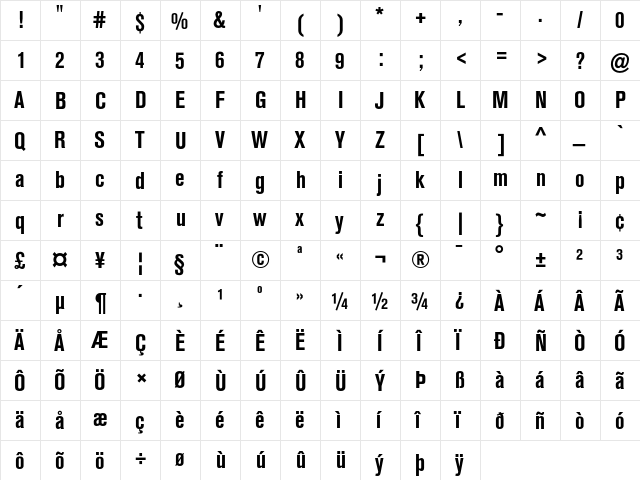
Akzidenz-Grotesk BQ Bold Condensed Alt Font Preview
Design Context for Akzidenz-Grotesk BQ Typeface
Akzidenz-Grotesk BQ takes a clean, functional approach — its unadorned letterforms prioritise legibility and work reliably across screen and print environments. Its bold stroke weight gives it real presence on the page. The condensed width makes it efficient for tight spaces without sacrificing legibility.
Well-suited to navigation labels, product packaging, and anywhere legibility at scale is essential.
Font Pairing: Use Akzidenz-Grotesk BQ for headlines alongside a lighter-weight sans or serif for body copy to establish clear visual hierarchy.
Pro Tip: Use Akzidenz-Grotesk BQ tightly set in headlines and banners — its condensed proportions make it ideal for maximum impact in minimum horizontal space.